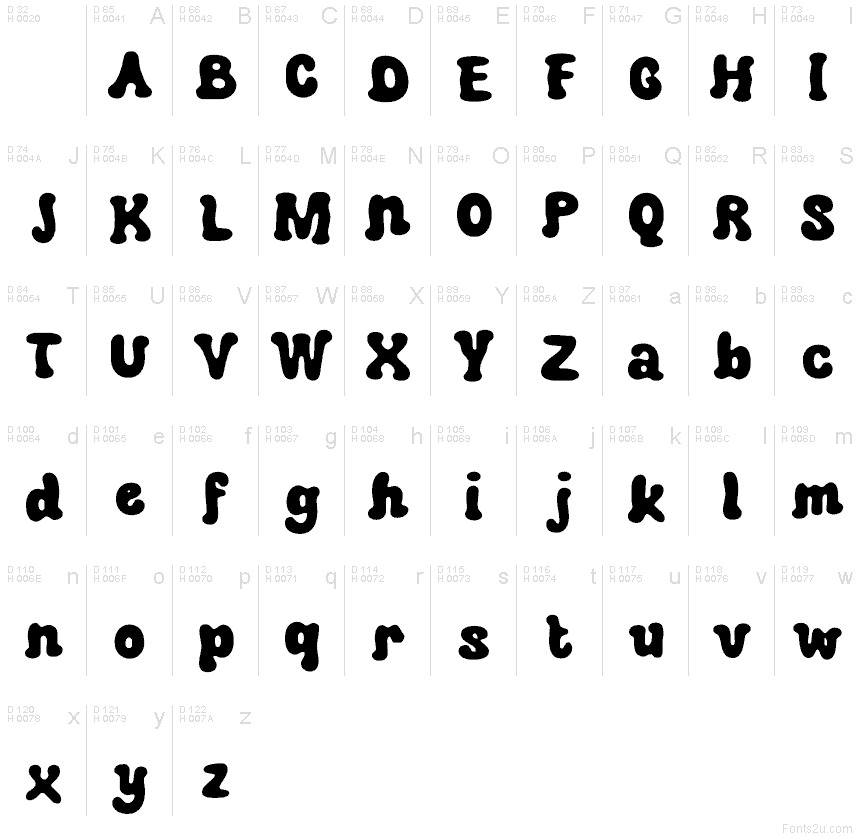
RadeyBlur-Regular Demo
Radey Blur font by Craft Supply Co. radiates a bubbly, cartoon-inspired touch with retro, organic shapes and bold weight. This display-type font creates a youthful and whimsical aesthetic with thick letters that are easily readable within any project they get used for. With free use allowed, you are encouraged to experiment away with different projects for entertaining final outcomes.
Have fun using Radey Blur in comic covers, cartoon posters, movie titles, book cover designs for kids’ novels or books that need artwork saturation. Blog author fonts, application design headings and items like t-shirts can also benefit from this playful font adding aesthetics to your visual communication means!